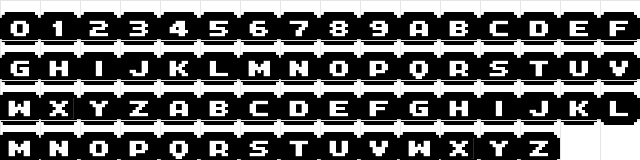
FFF Interface06b Regular
Design Context for FFF Interface06b Typeface
FFF Interface06b offers clean, dependable letterforms without strong stylistic allegiance, making it a practical choice for designers who need flexibility.
Pro Tip: Use FFF Interface06b in both headline and body roles to test its range before committing to a single application.